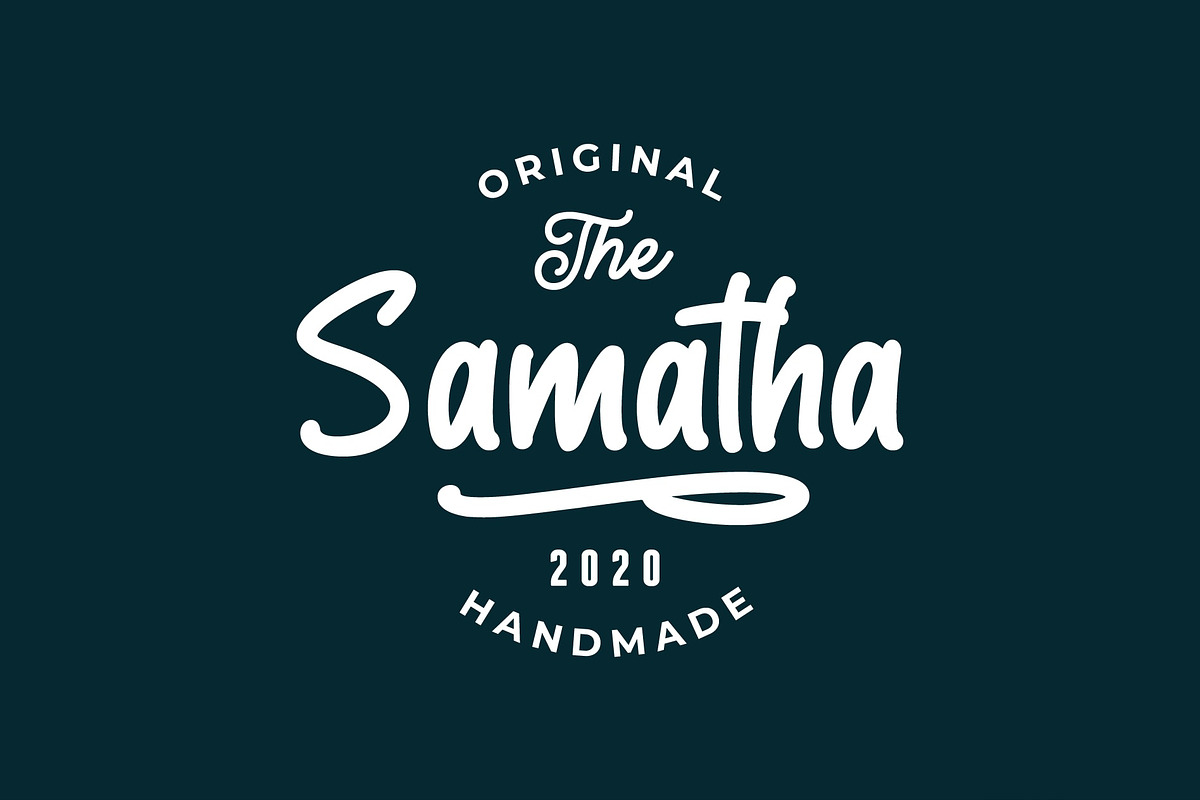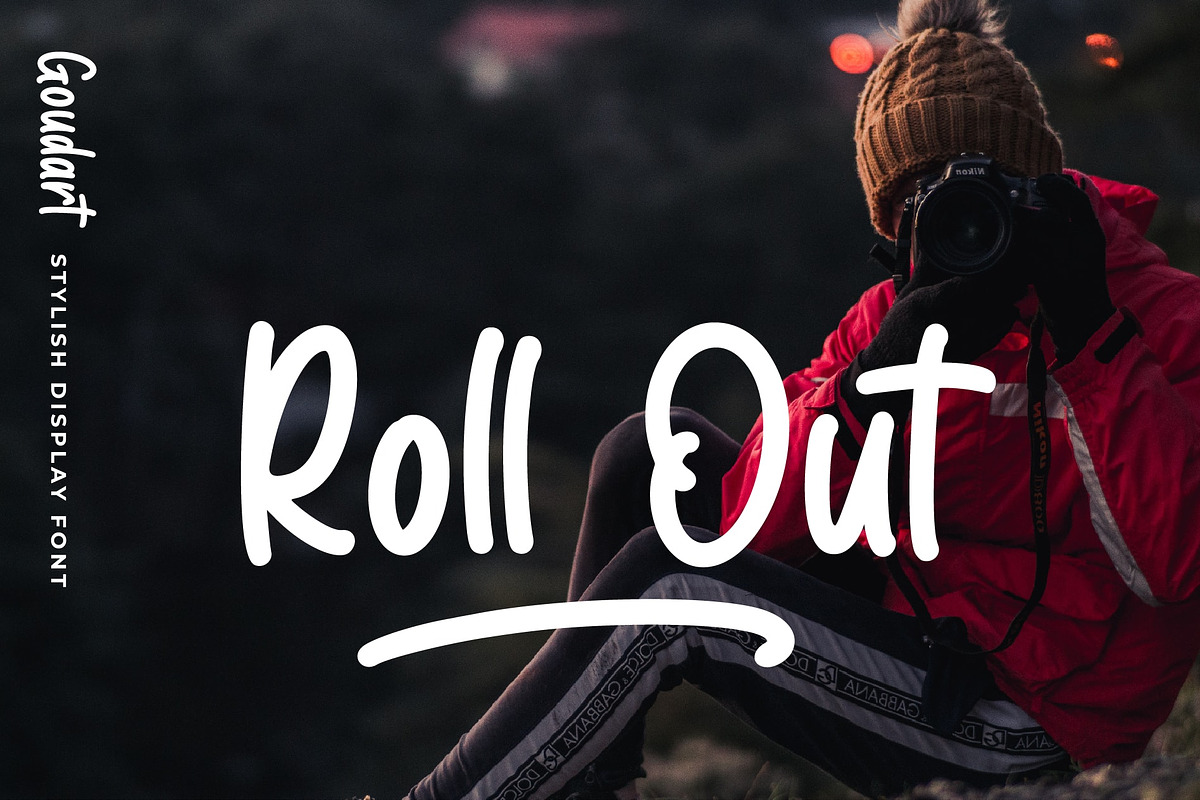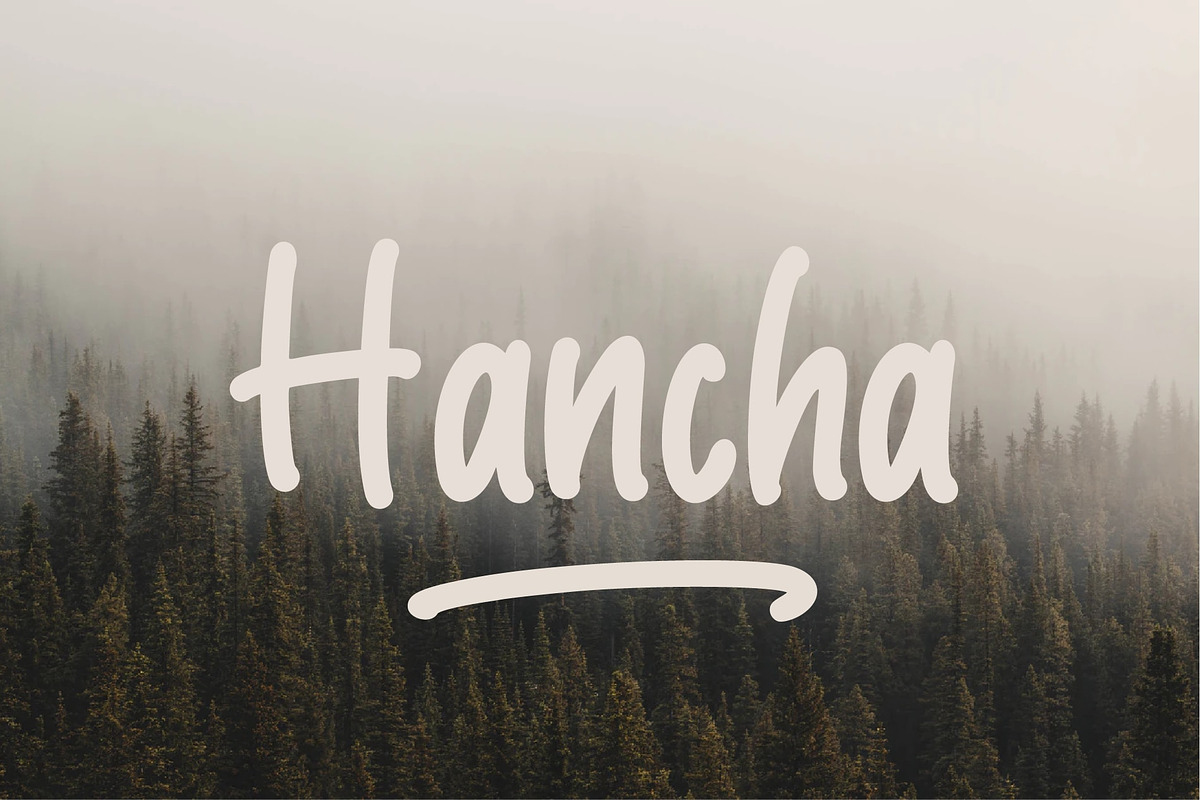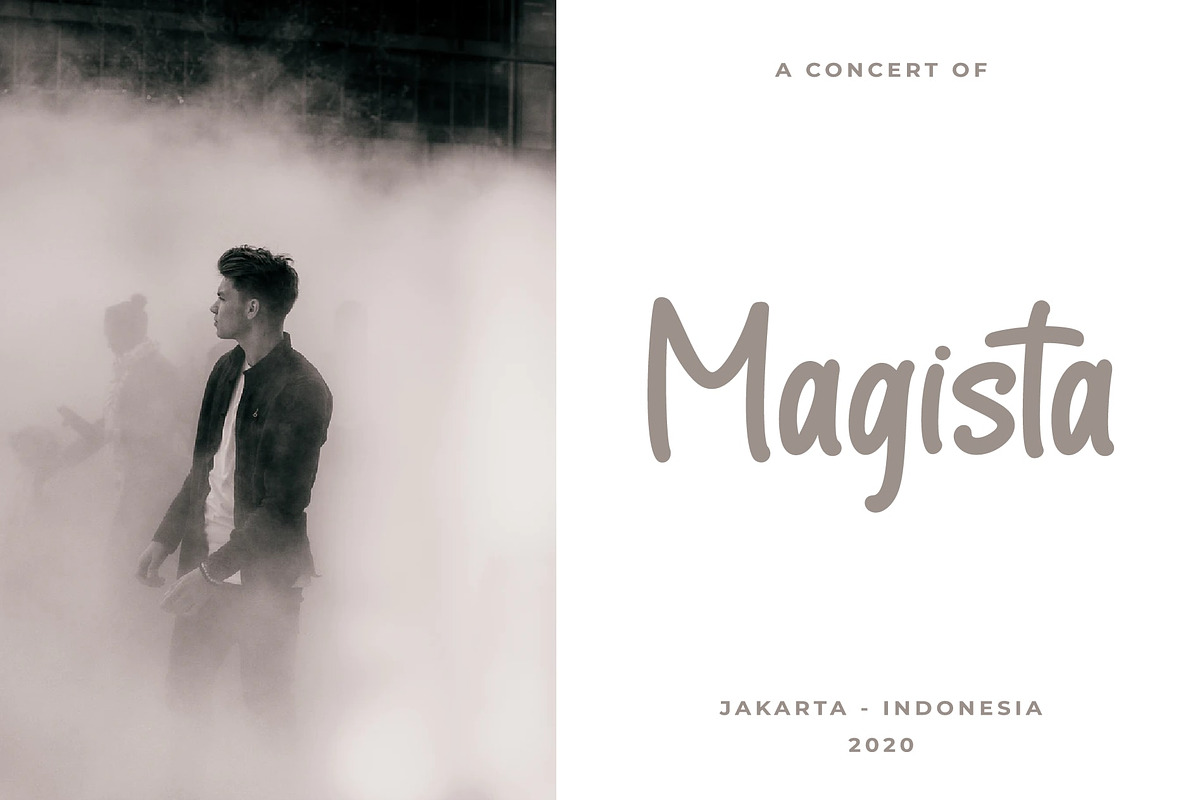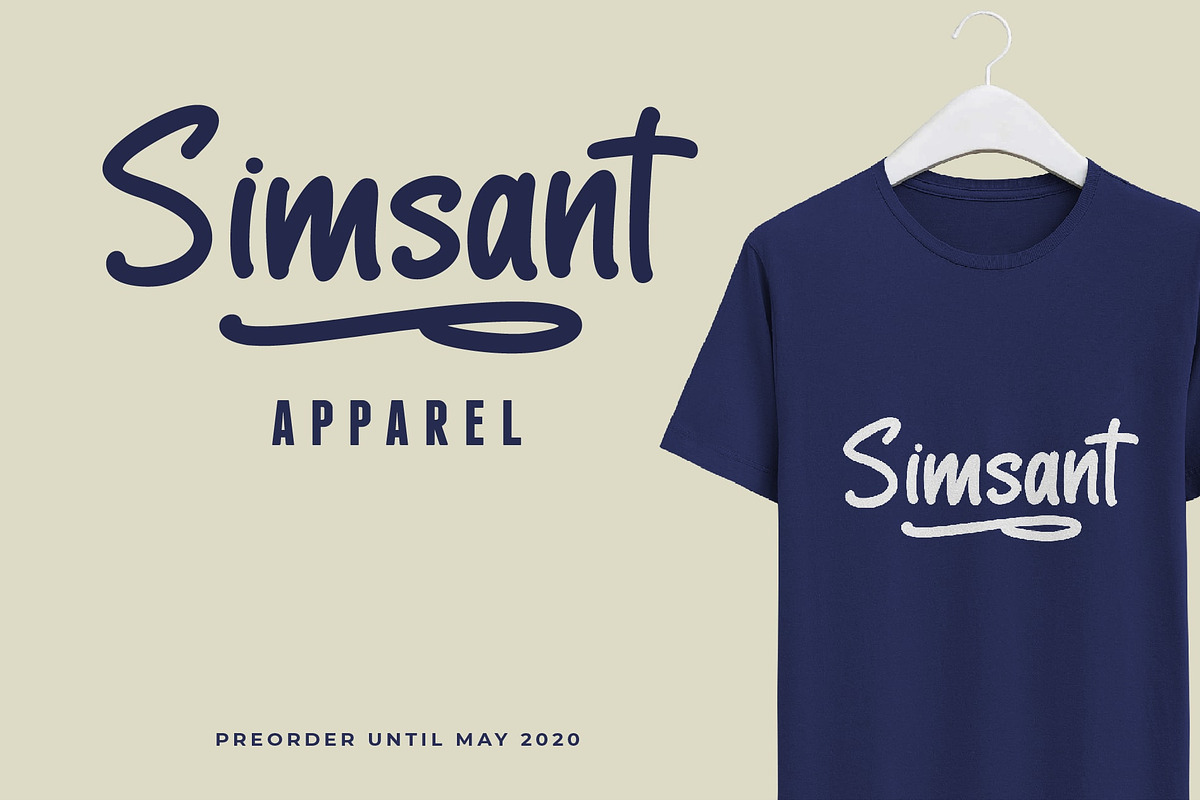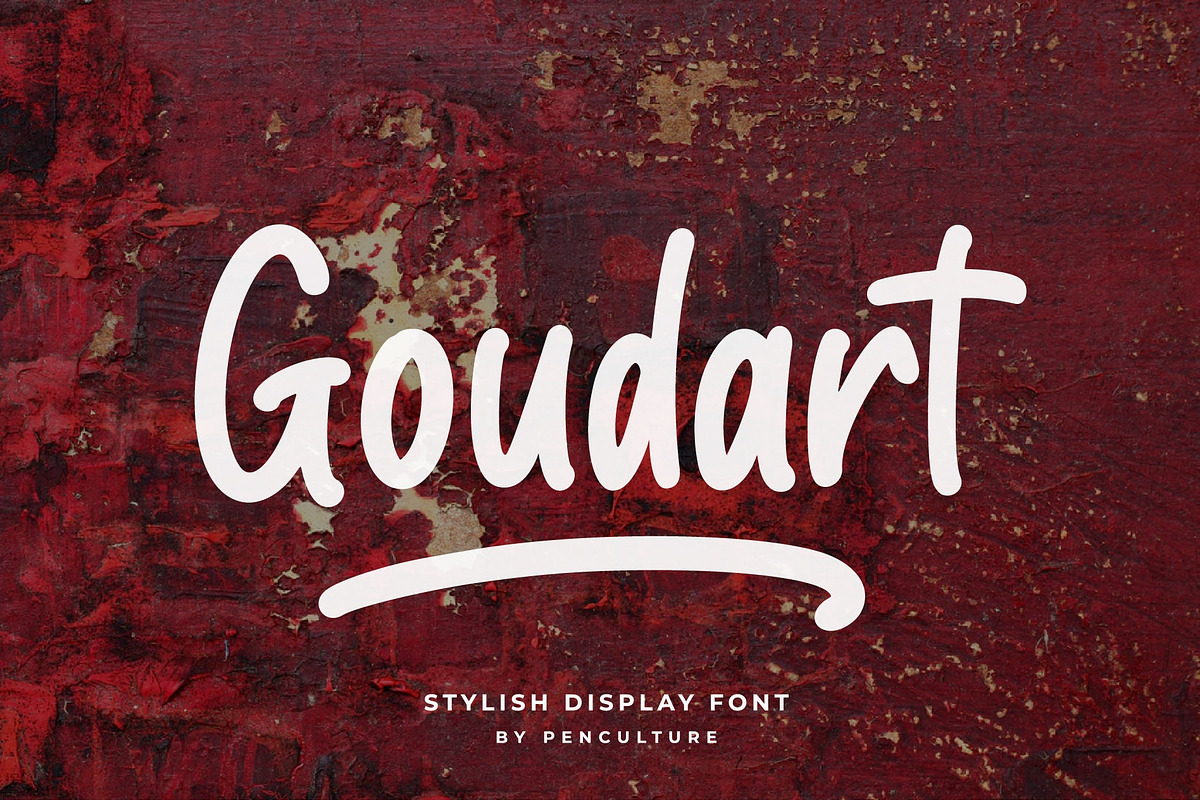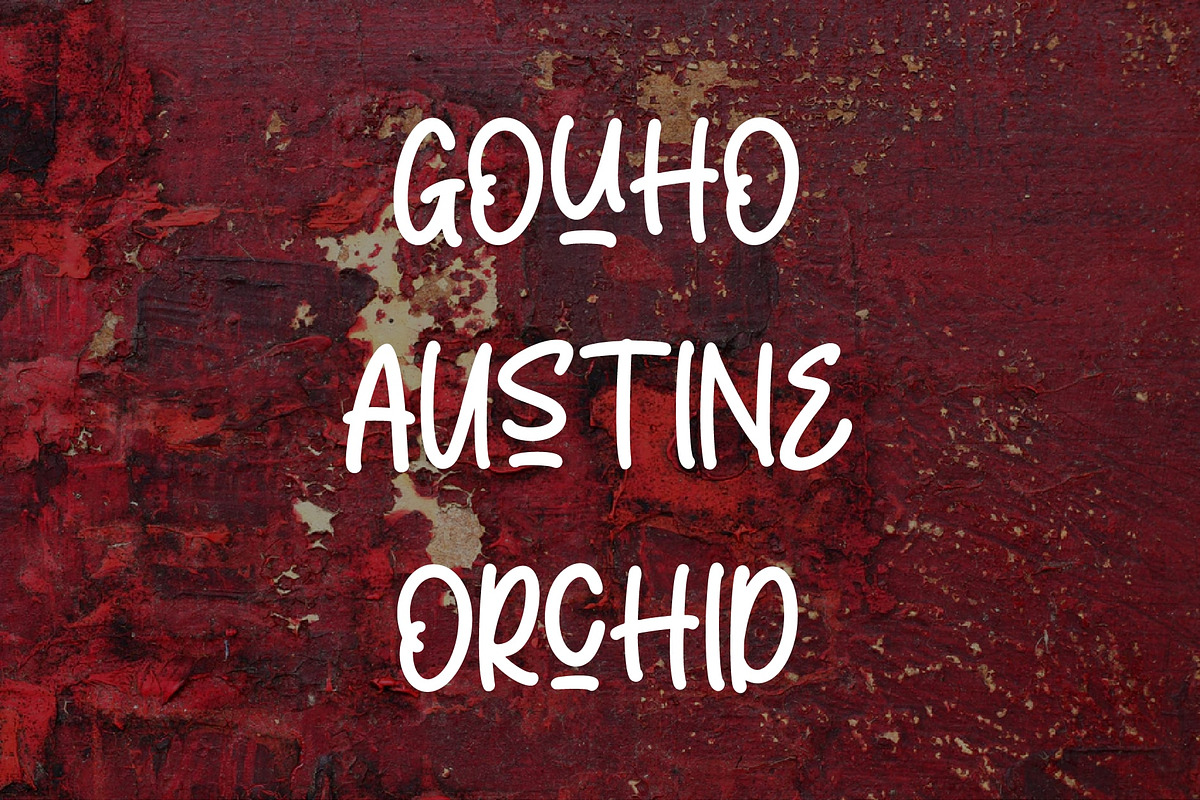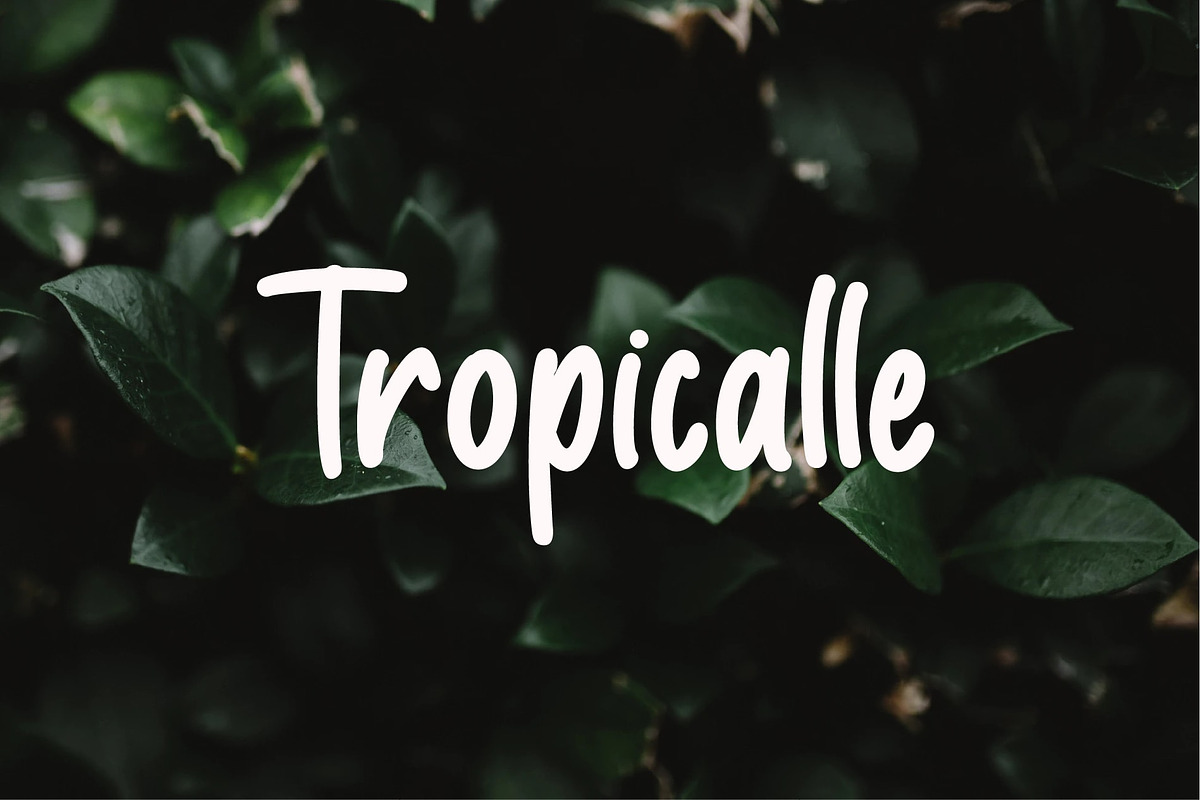
Goudart - Stylish Display Font
Please welcome our newest font called Goudart. A stylish dispaly font with various interesting features. This font is perfect for for branding, poster, and many more.
Uppercase and lowercase
Why Goudart - Stylish Display Font is worth a look
Goudart - Stylish Display Font by Pen Culture fits naturally into Branding, posters, packaging, typography.